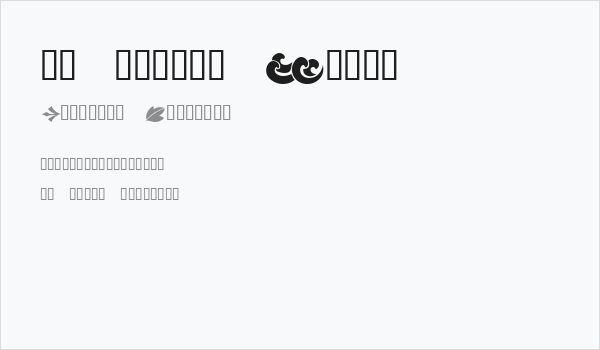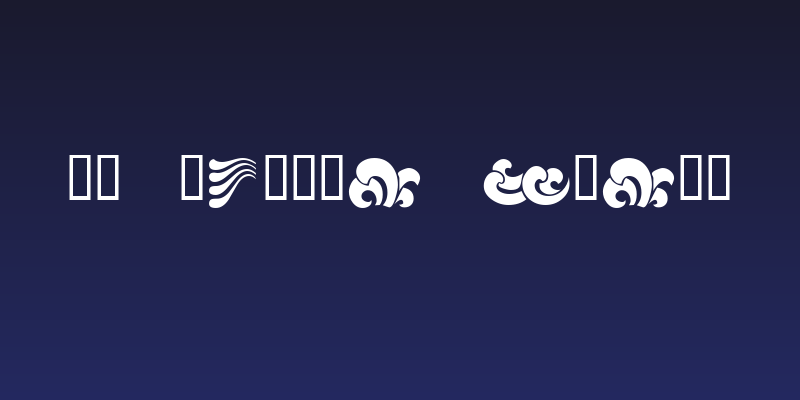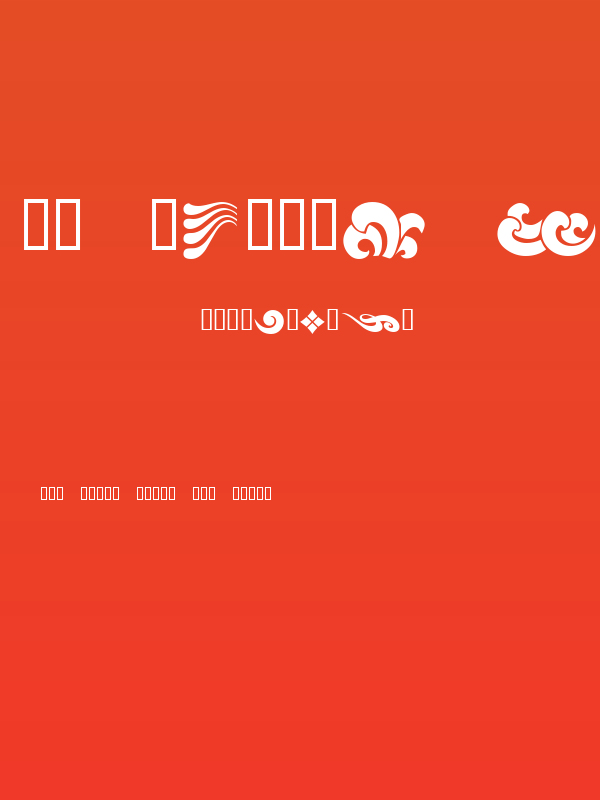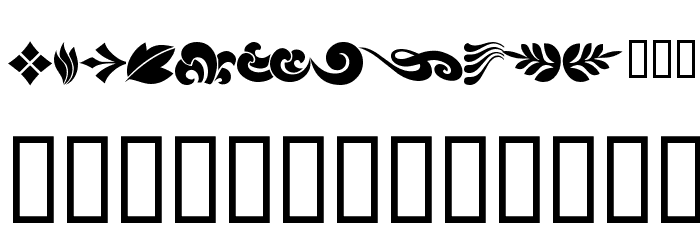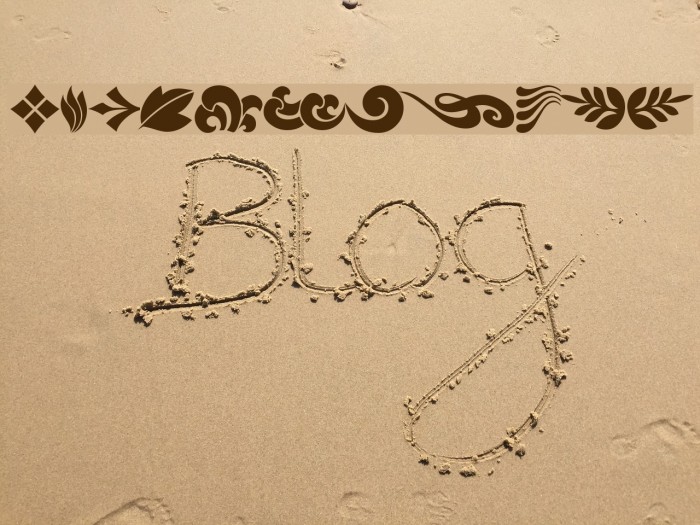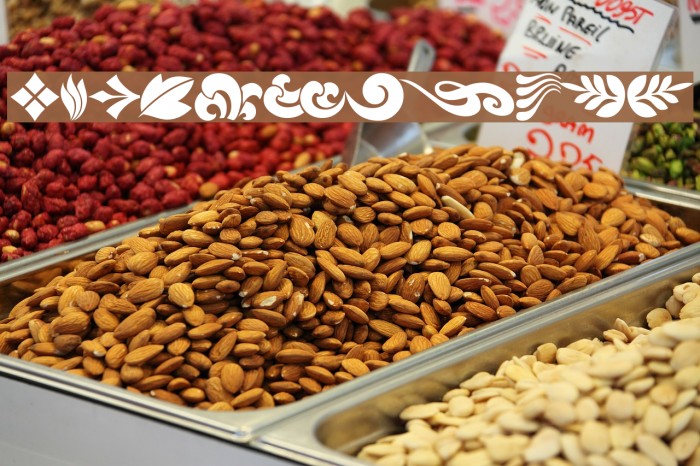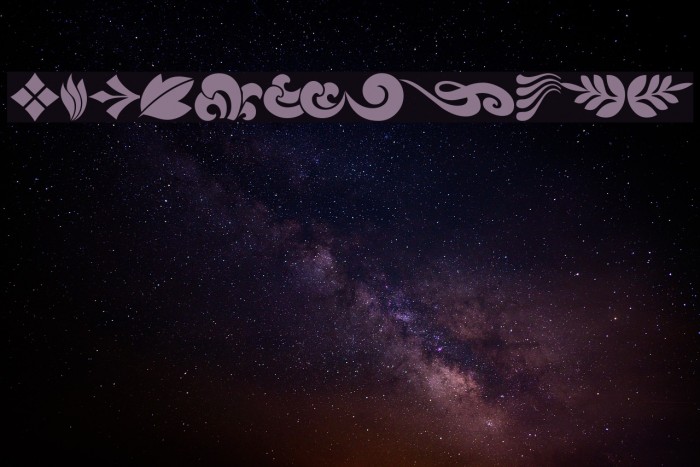
KR Simple Fleur Font
KR Simple Fleur Description
This design features a series of decorative floral elements arranged in a horizontal pattern. The motifs include stylized leaves, swirls, and abstract floral shapes, creating an ornamental border. The elements are bold and intricate, showcasing a balance between solid black shapes and negative space. This design is ideal for adding a touch of elegance and sophistication to various projects, providing a classic and timeless aesthetic.
| Use Case | Borders, Decorative elements |
| Proposed Projects | Ideal for invitations, stationery, decorative borders, and packaging design. |